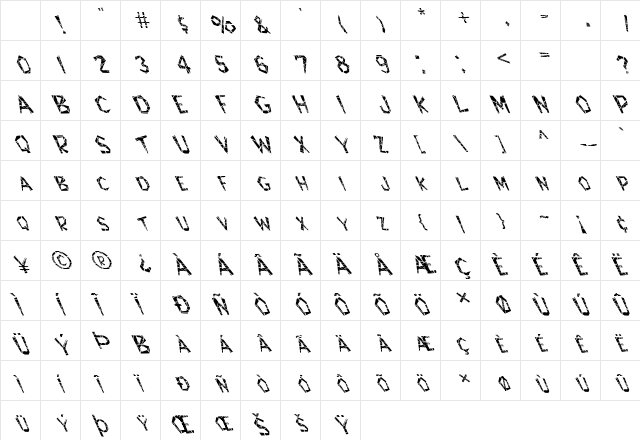
FZ JAZZY 8 CRACKED  LEFTY Normal
FZ JAZZY 8 CRACKED LEFTY Normal Font Preview
FZ JAZZY 8 CRACKED  LEFTY Normal Uppercase Preview
FZ JAZZY 8 CRACKED  LEFTY Normal Lowercase Preview
FZ JAZZY 8 CRACKED  LEFTY Normal Numeric Preview
FZ JAZZY 8 CRACKED LEFTY Normal Character Map
Complete FZ JAZZY 8 CRACKED LEFTY Normal glyph index. Displaying only characters natively supported by FZ JAZZY 8 CRACKED LEFTY Normal font.
FZ JAZZY 8 CRACKED  LEFTY Normal Character Map
Design Context for FZ JAZZY 8 CRACKED LEFTY
FZ JAZZY 8 CRACKED LEFTY is a composed and adaptable typeface that performs quietly and consistently across a wide range of design contexts.